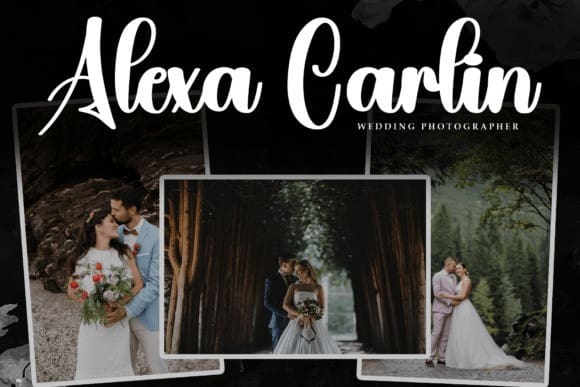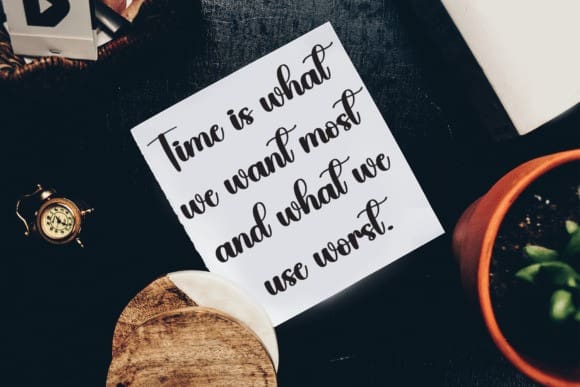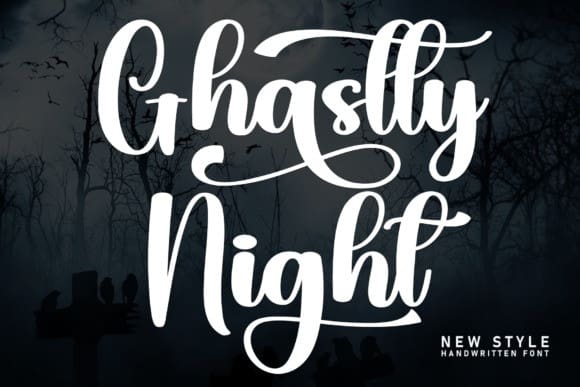
Ghastly Night Font
Ghastly Night Font is a lovely and timeless handwritten font. It is the best choice for creating eye catching logos, branding and quotes. Every letter has a unique and beautiful touch, which will make your design come alive!